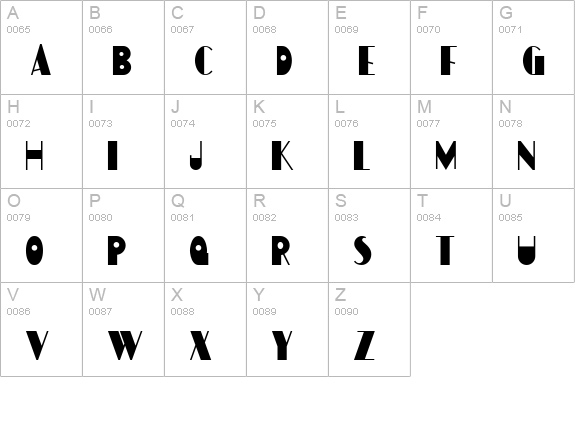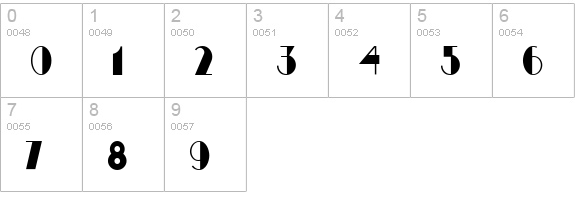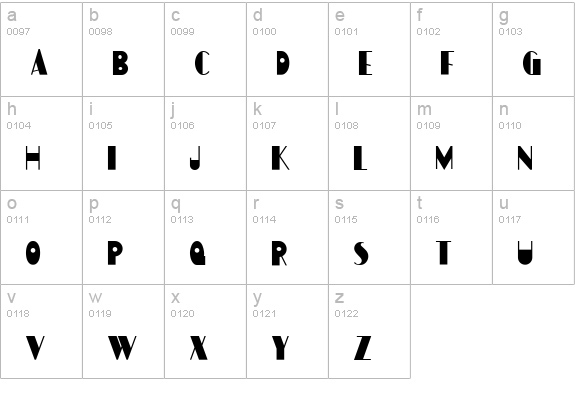
Gulfstream NF is a sleek and modern font that exudes elegance and sophistication. With its clean lines and stylish curves, this typeface is perfect for adding a touch of class to any project. Whether you're designing a logo, creating a website, or crafting a print advertisement, Gulfstream NF will make your text stand out. The best part? Gulfstream NF is completely free to download at FontsMarket.com. That's right - you can enhance your designs with this stunning font without spending a penny. Don't miss out on the opportunity to elevate your work with Gulfstream NF's timeless appeal. Download it today and start creating beautiful typography that captivates your audience.